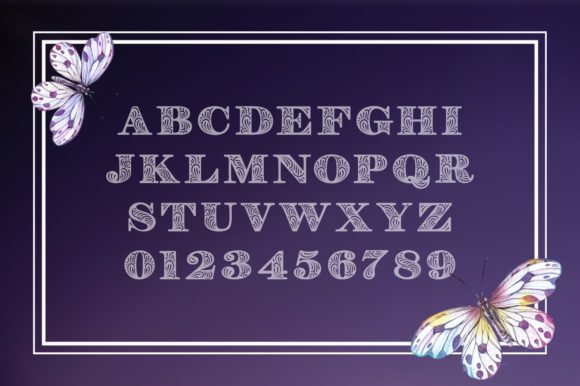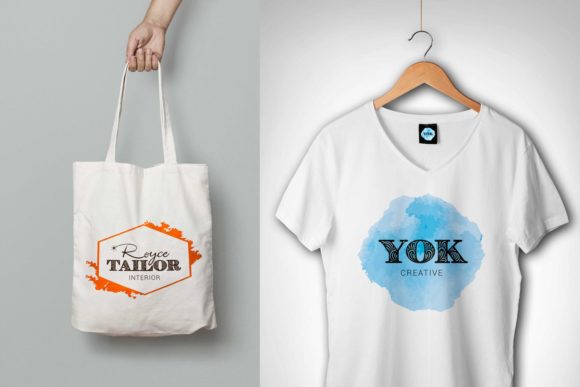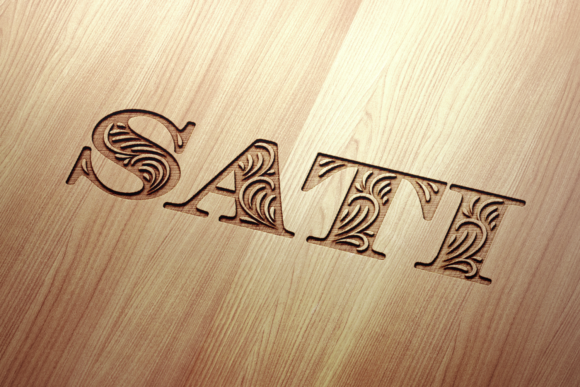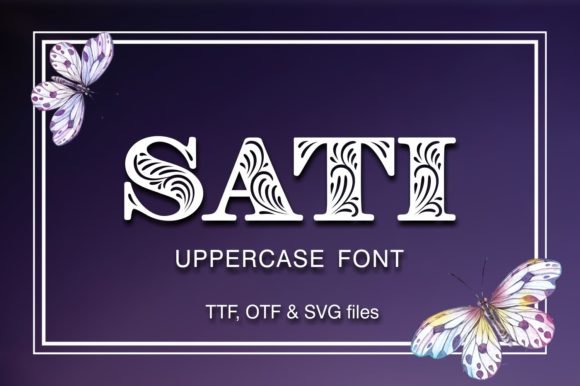
Introduction to Sati Font
Sati is a beautiful all caps decorative font.
It will look outstanding in any context, whether it’s being used on busy backgrounds or as a standalone headline .